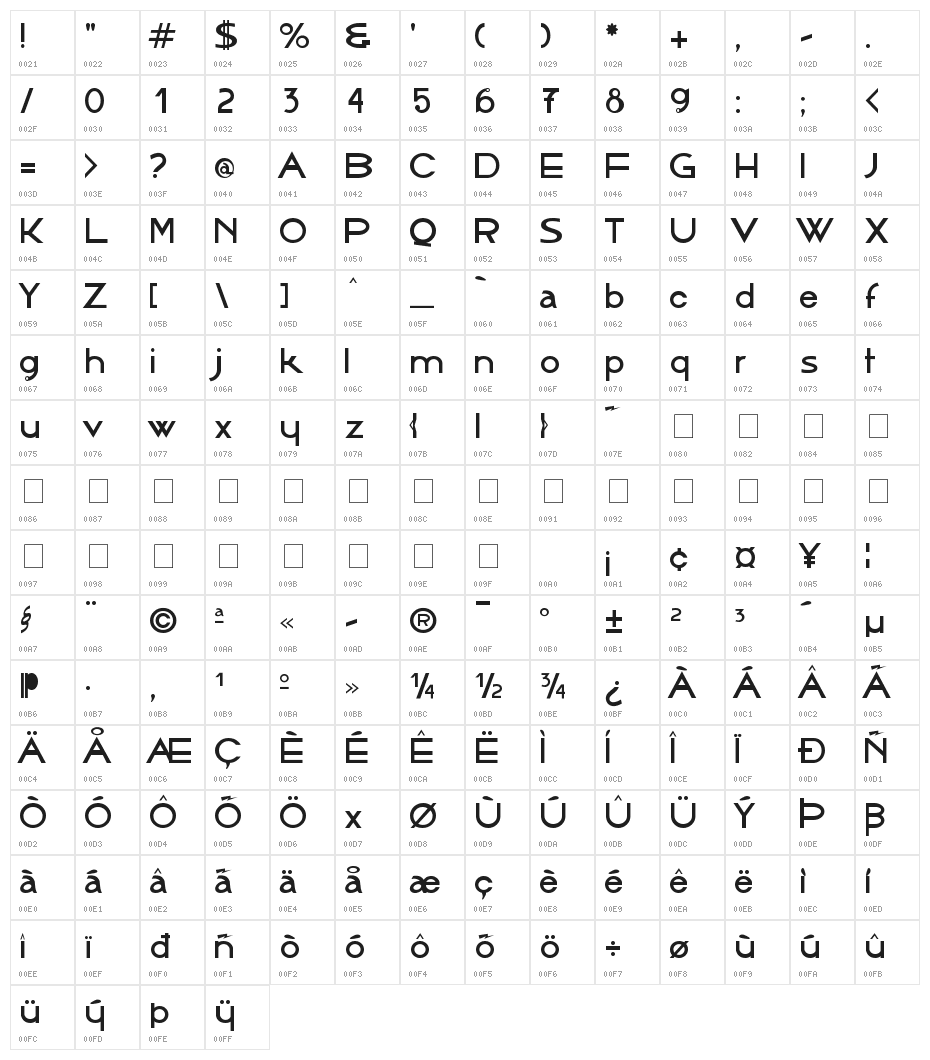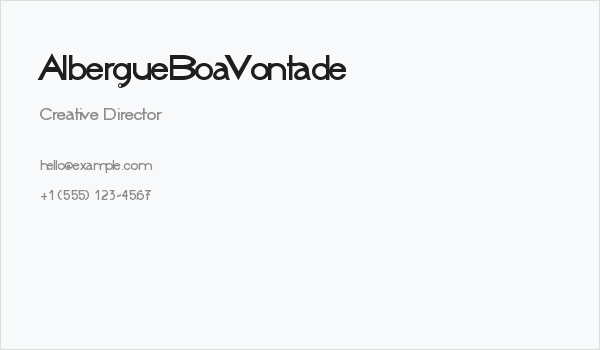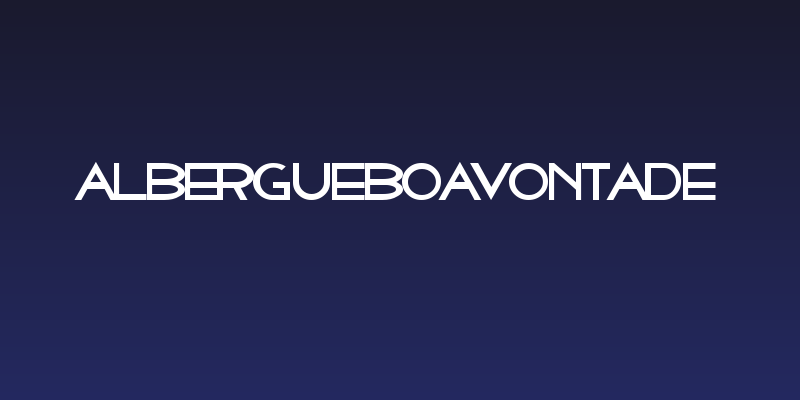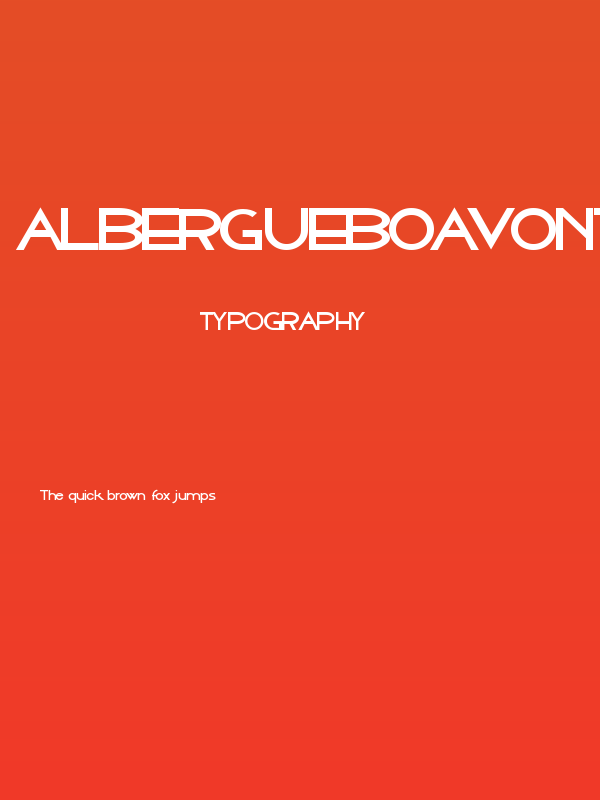
AlbergueBoaVontade Font
AlbergueBoaVontade Description
This font features a modern and geometric design with clean lines and a uniform stroke width. The uppercase letters are bold and structured, providing a strong visual impact. The lowercase letters maintain a consistent style, with rounded edges that add a touch of softness to the overall appearance. The numerals are distinct and easy to read, complementing the alphabet with their balanced proportions. Special characters are designed with the same attention to detail, ensuring a cohesive look across all glyphs. This font's contemporary style makes it suitable for various design applications.
| Proposed Projects | Ideal for branding, advertising, and editorial design projects. |